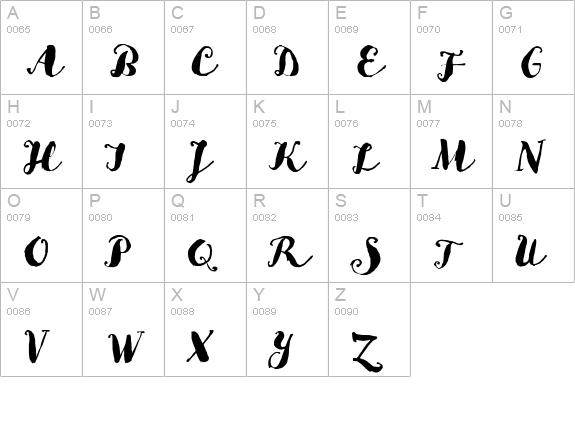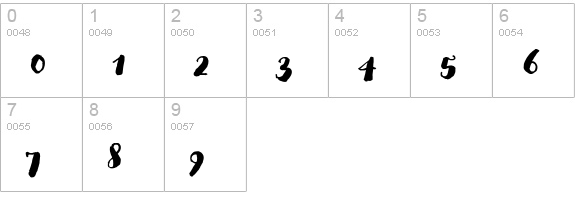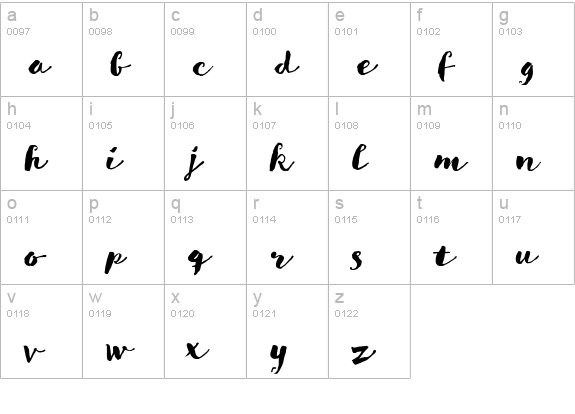
Goodlife Brush font is a charming and versatile typeface that exudes a sense of creativity and playfulness. With its hand-drawn brush strokes and elegant curves, this font is perfect for adding a touch of personality to your designs. Whether you're creating invitations, posters, or branding materials, Goodlife Brush font will help you stand out from the crowd. The best part? Goodlife Brush font is completely free to download at FontsMarket.com. This means you can easily add this unique font to your collection without any cost. Don't miss out on the opportunity to enhance your projects with the beauty and flair of Goodlife Brush font - download it today and let your creativity shine!